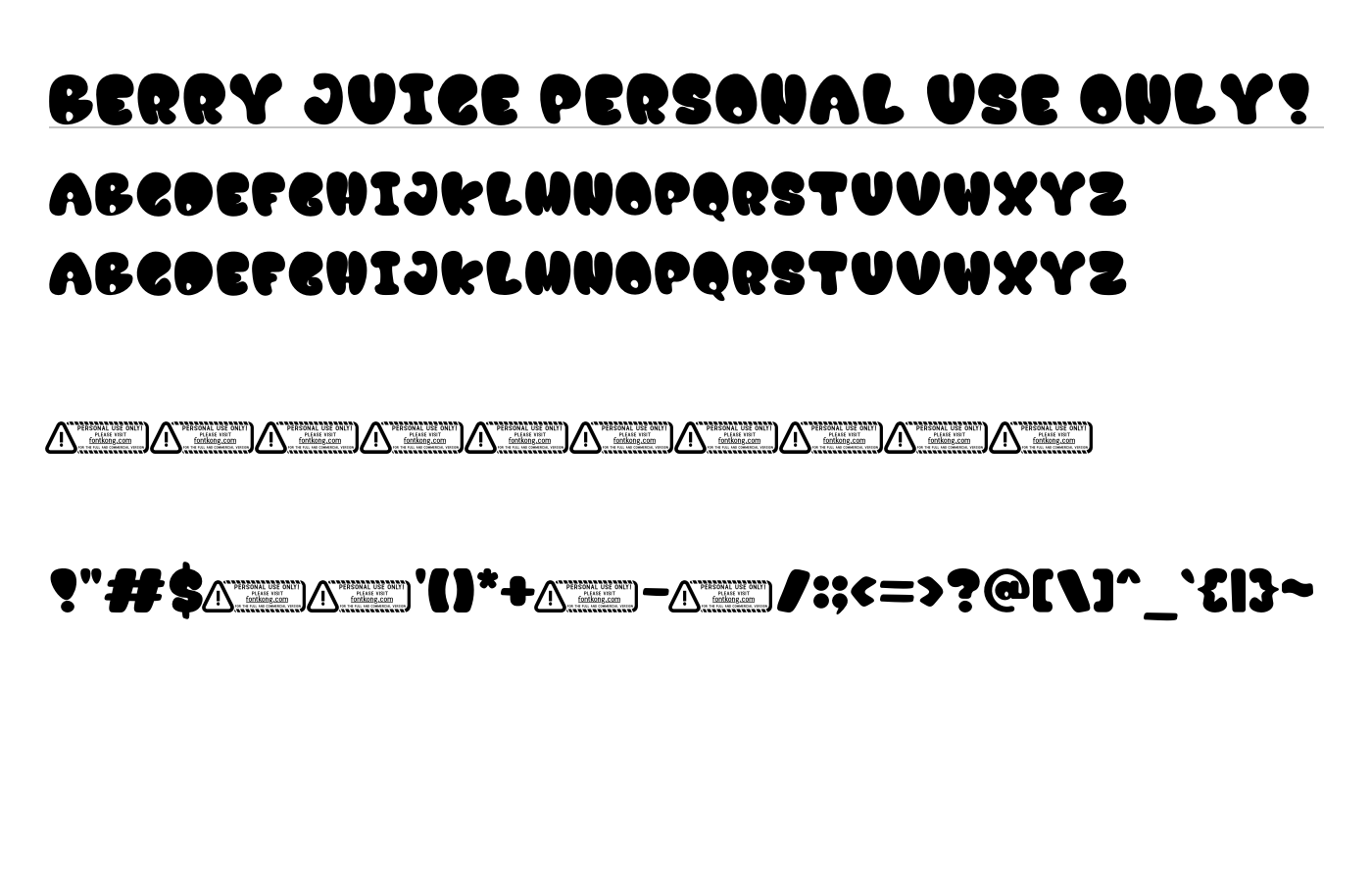
Berry Juice is a playful, bold sans serif font with thick, rounded letterforms that create a fun and bubbly feel. Its chunky weight and smooth curves make it perfect for casual, youthful designs, ideal for children’s products, party invitations, or any creative project seeking a lively and approachable tone.
Berry Juice PERSONAL USE ONLY! Font
About Berry Juice PERSONAL USE ONLY! Font